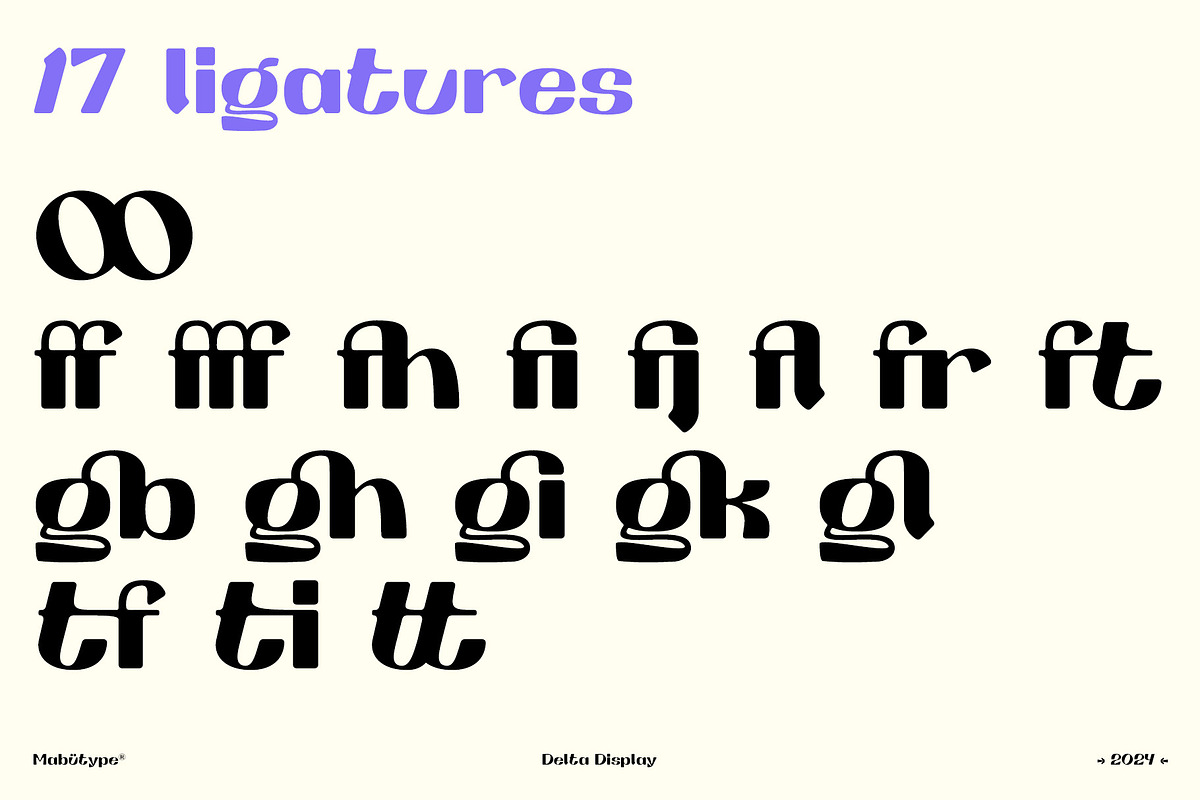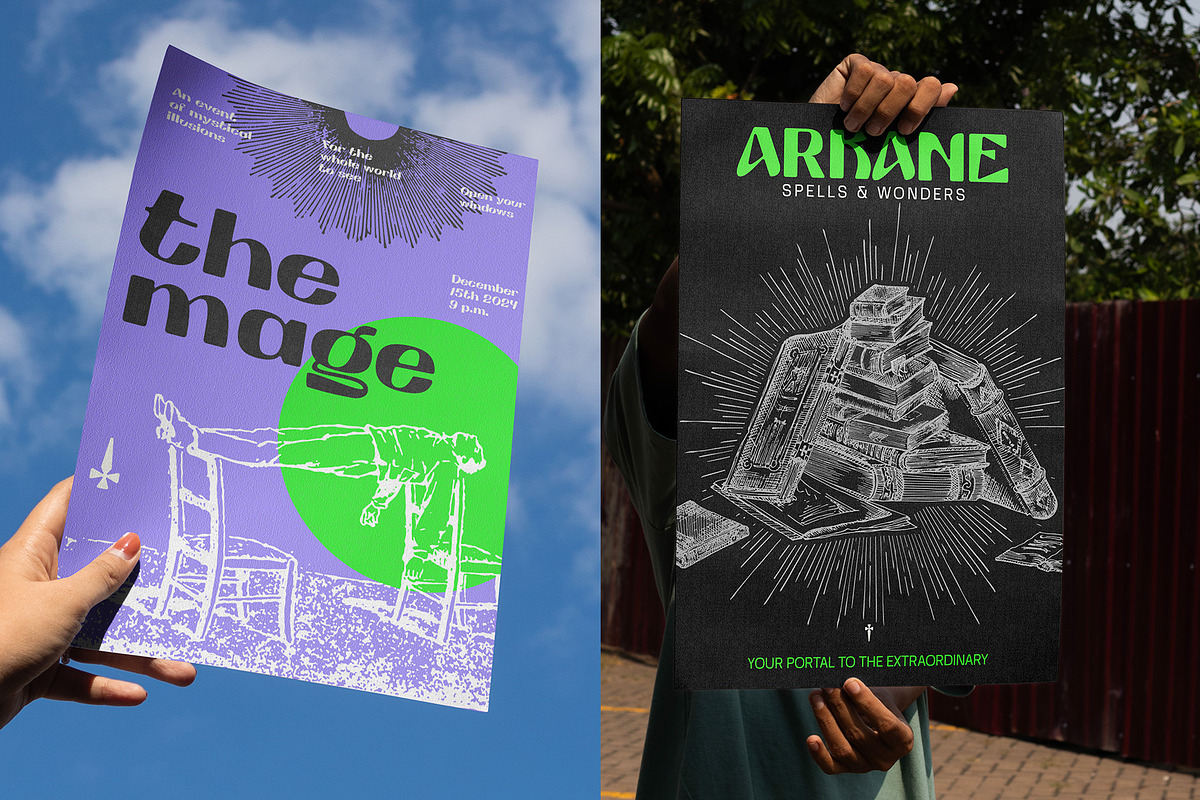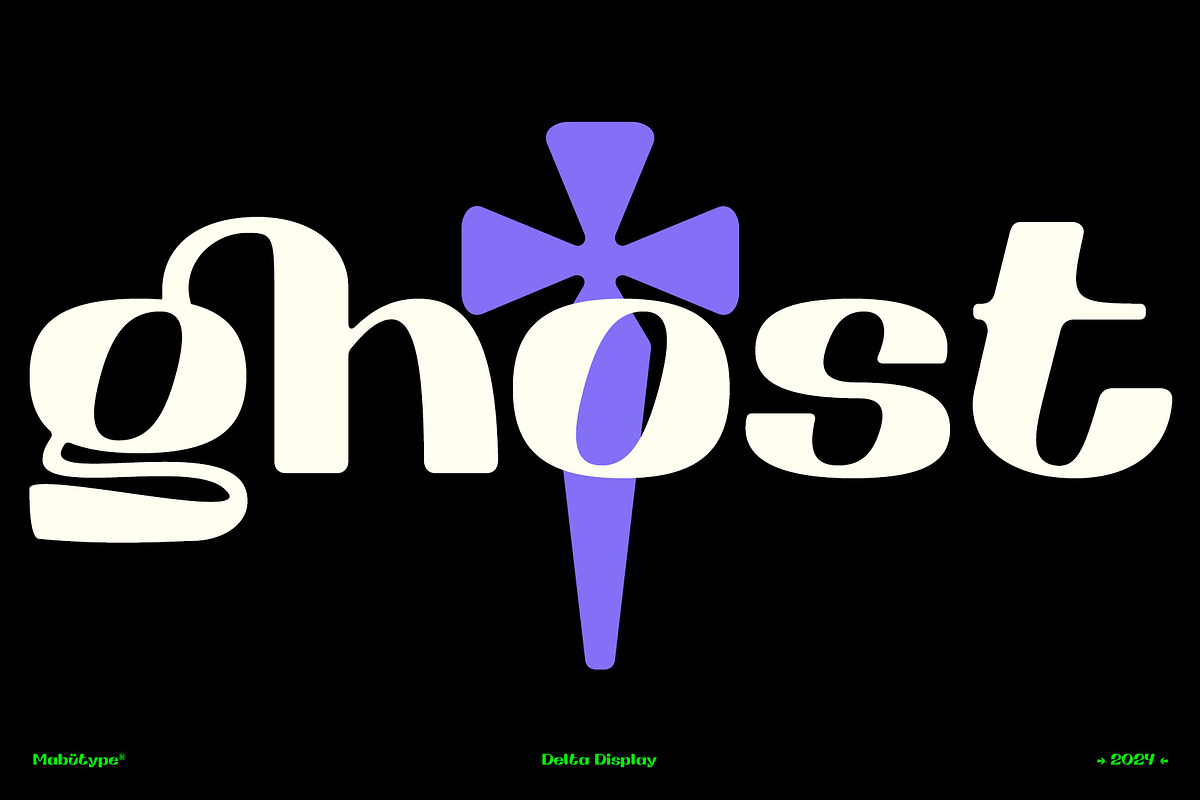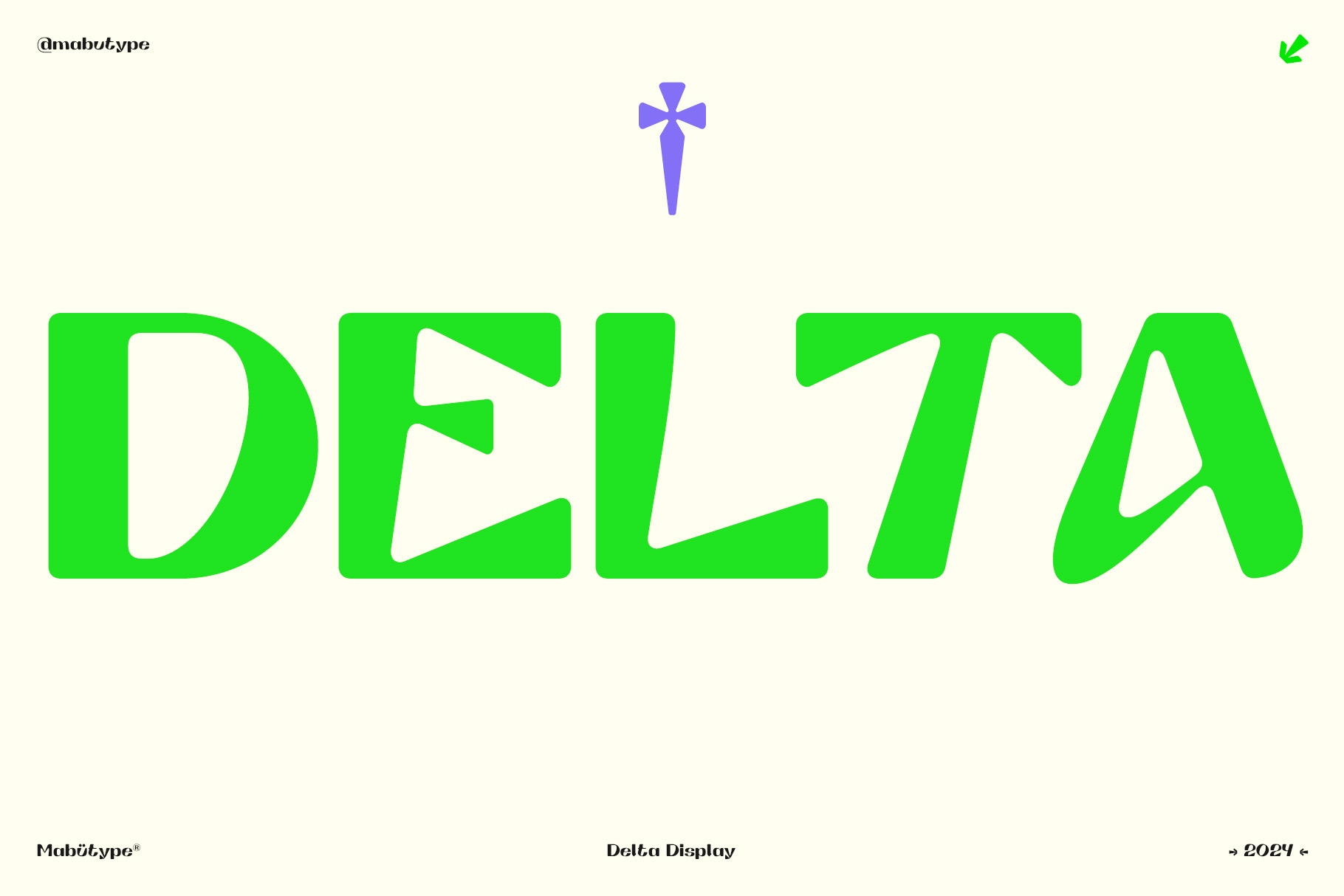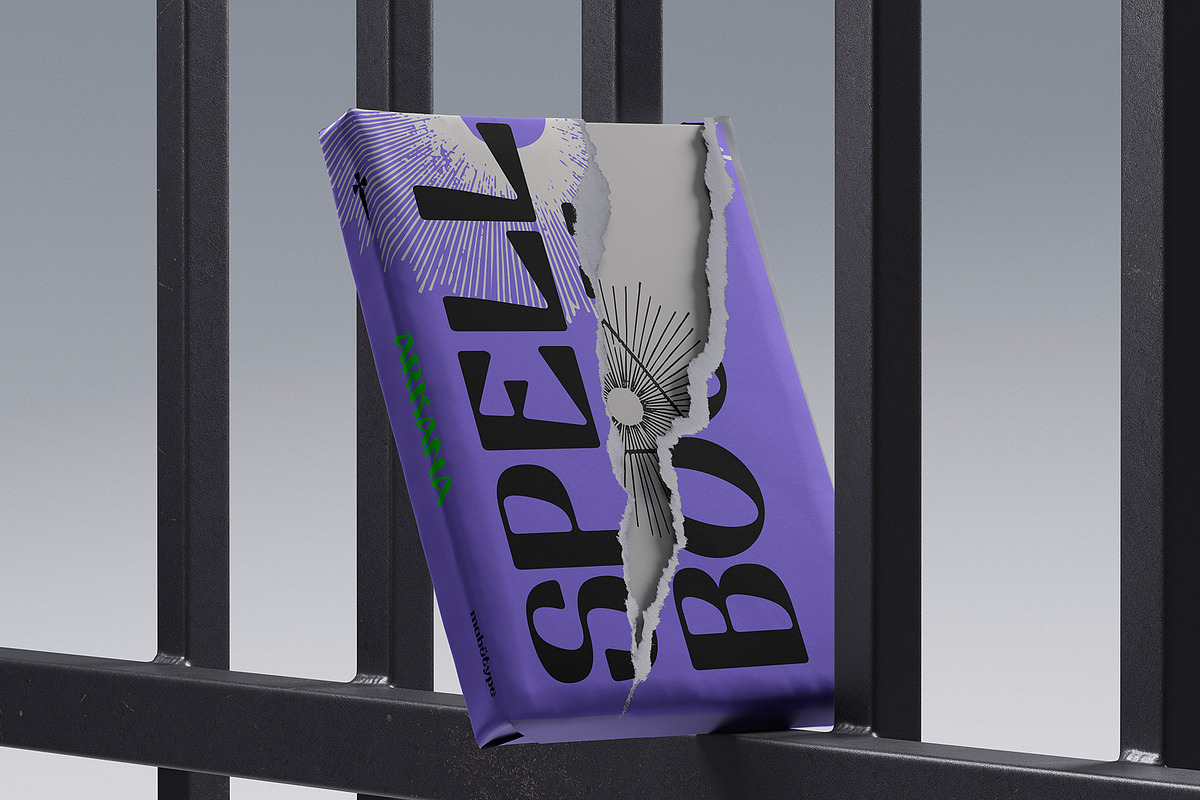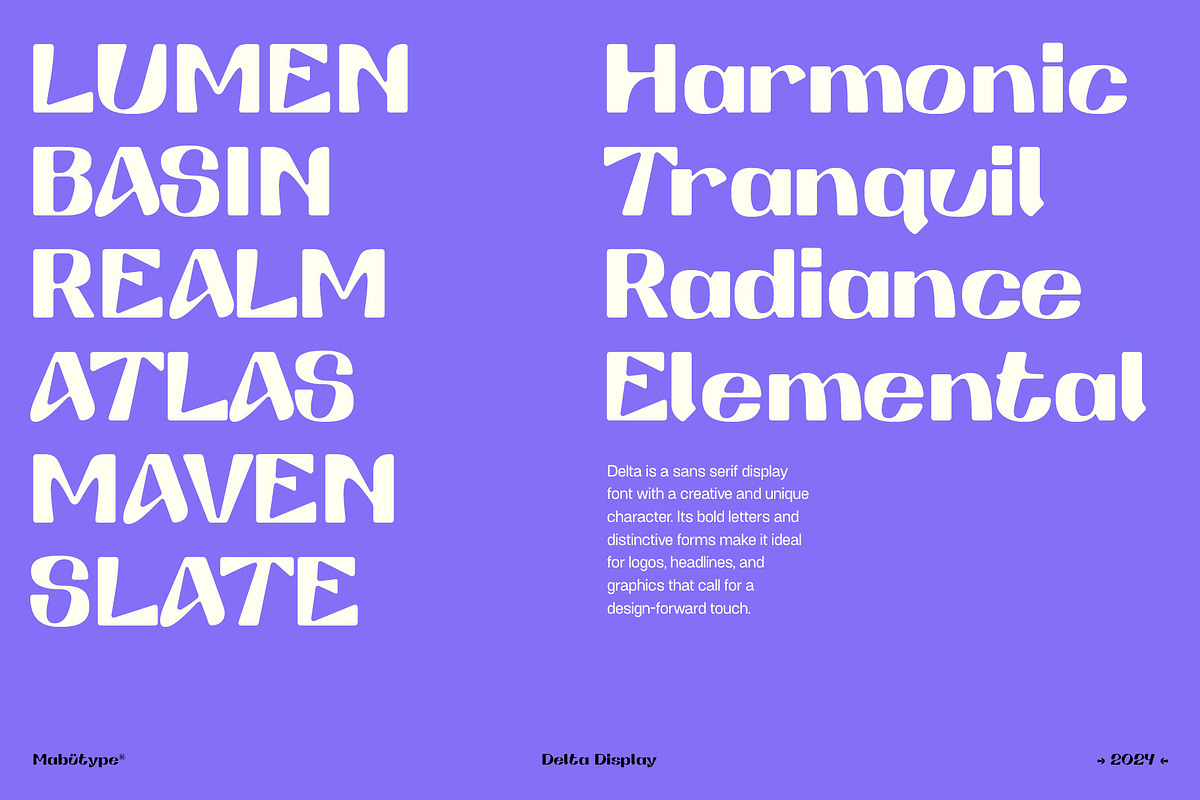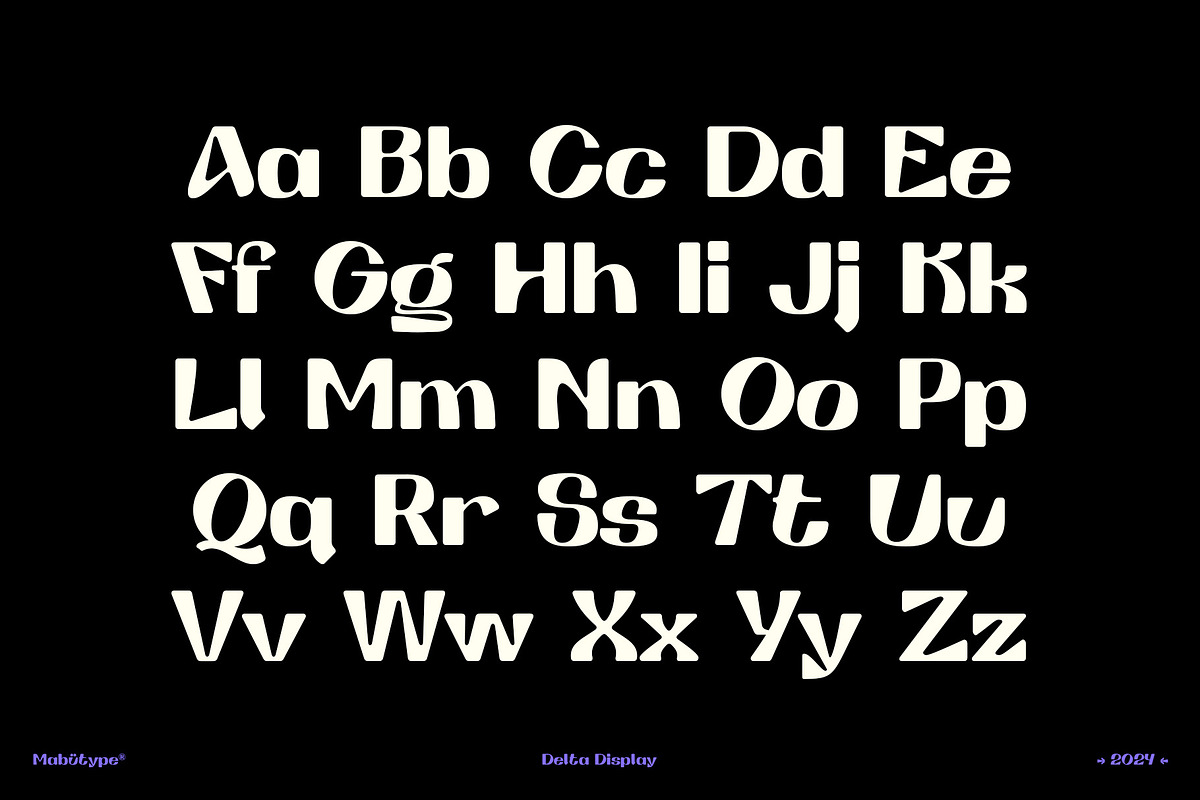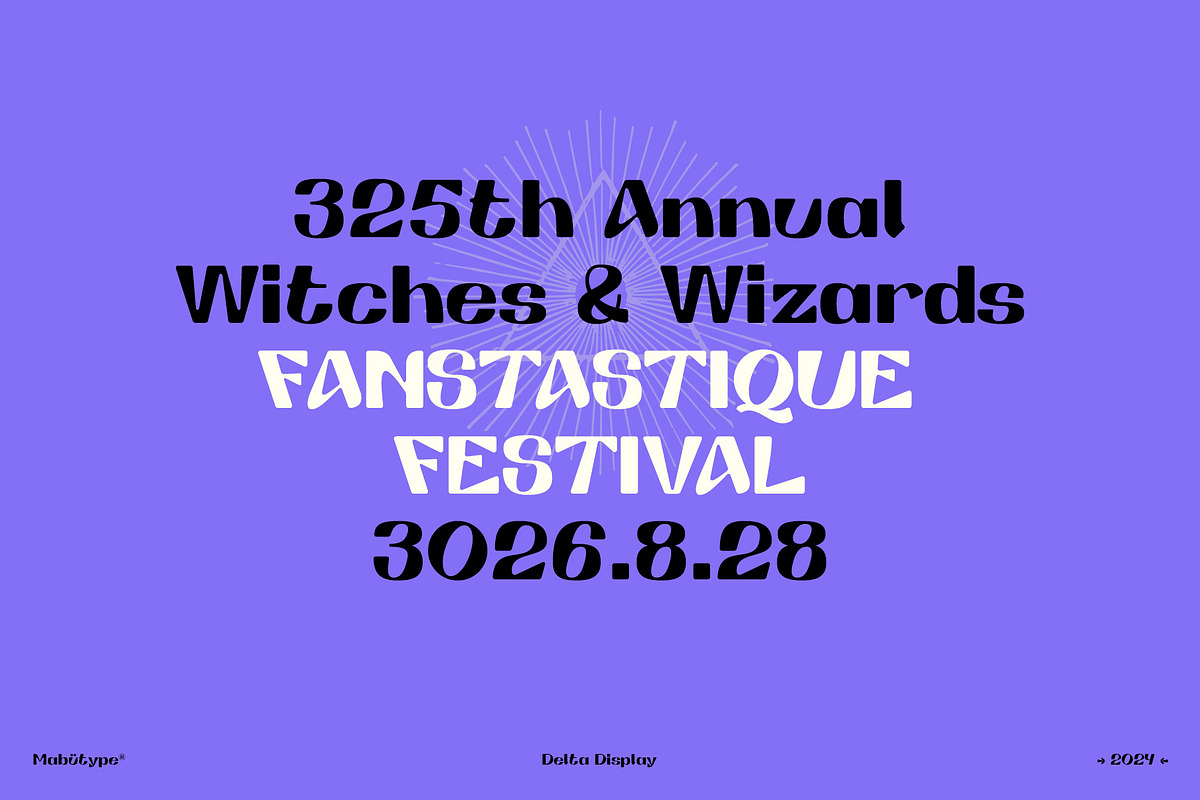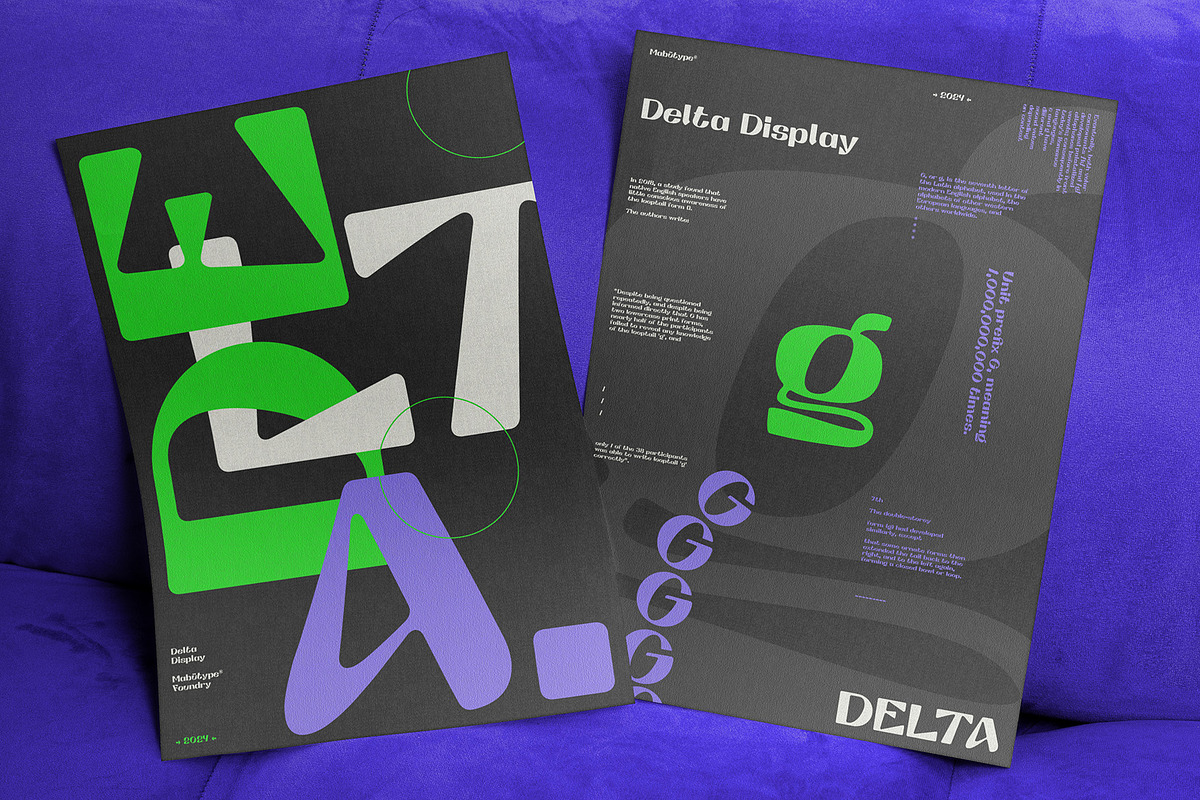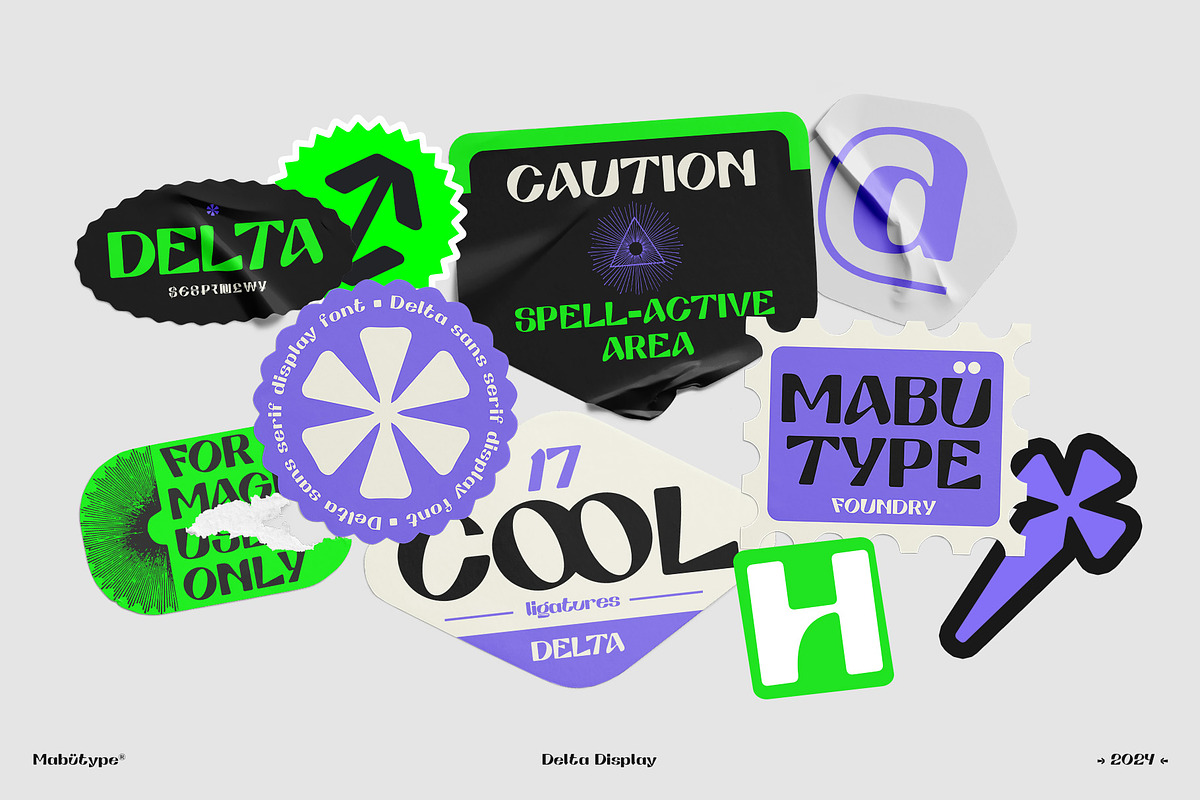
Delta - Display Typeface
Delta is a sans serif display font with a creative and unique character. Its bold letters and distinctive forms make it ideal for logos, headlines, and graphics that call for a design-forward touch.
Delta is designed to be paired with other fonts, enhancing the creative process to add personality and flair to your designs. Its slanted, dynamic shapes create a unique visual impact, while the rounded, fast-paced angles draw inspiration from current design trends to bring a modern and quirky feel.
This font is perfect for branding, logos, headlines, invitations, apparel, web design, magazines, book covers, and any project where you want to make a statement.